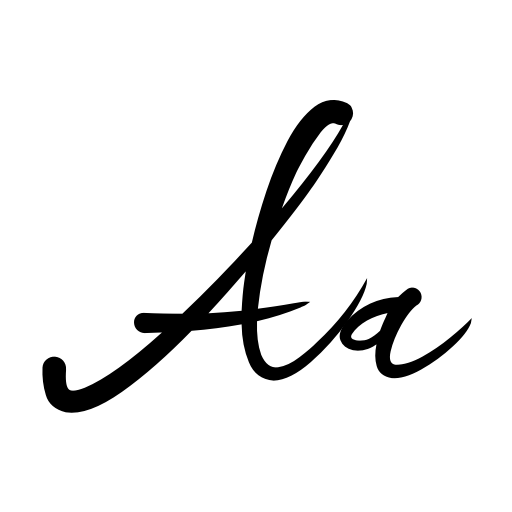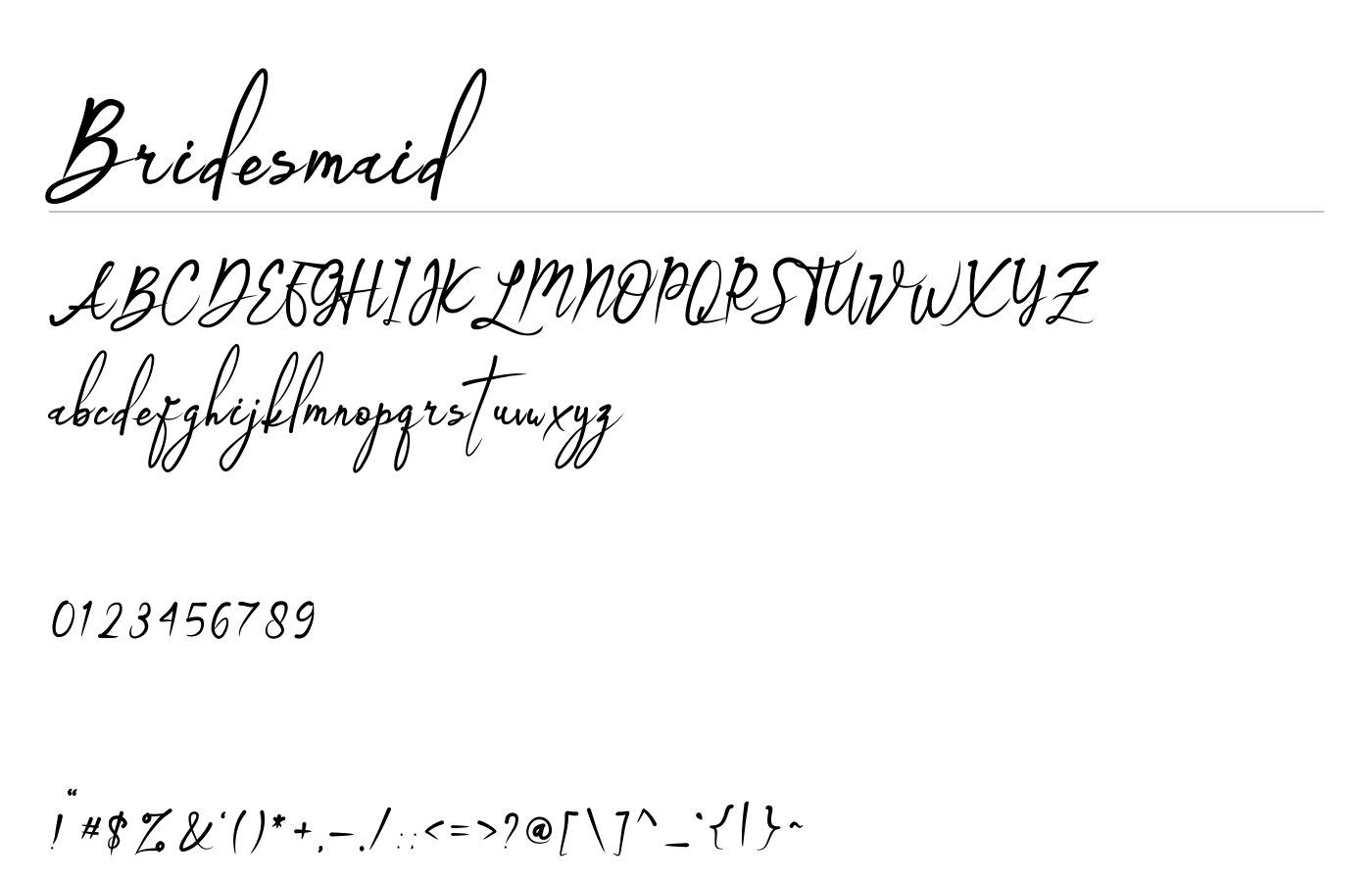
Bridesmaid Font is an elegant, thin script typeface with a delicate, flowing style that mimics natural handwriting. Its tall, narrow letterforms and fine strokes create a graceful and refined look, perfect for romantic or sophisticated design projects such as wedding invitations, luxury branding, and stylish headlines. This font’s airy and charming personality adds a personal, intimate touch wherever it is used.
Bridesmaid Font
About Bridesmaid Font
| Font family | Bridesmaid Font |
| Designer | Yudistira |